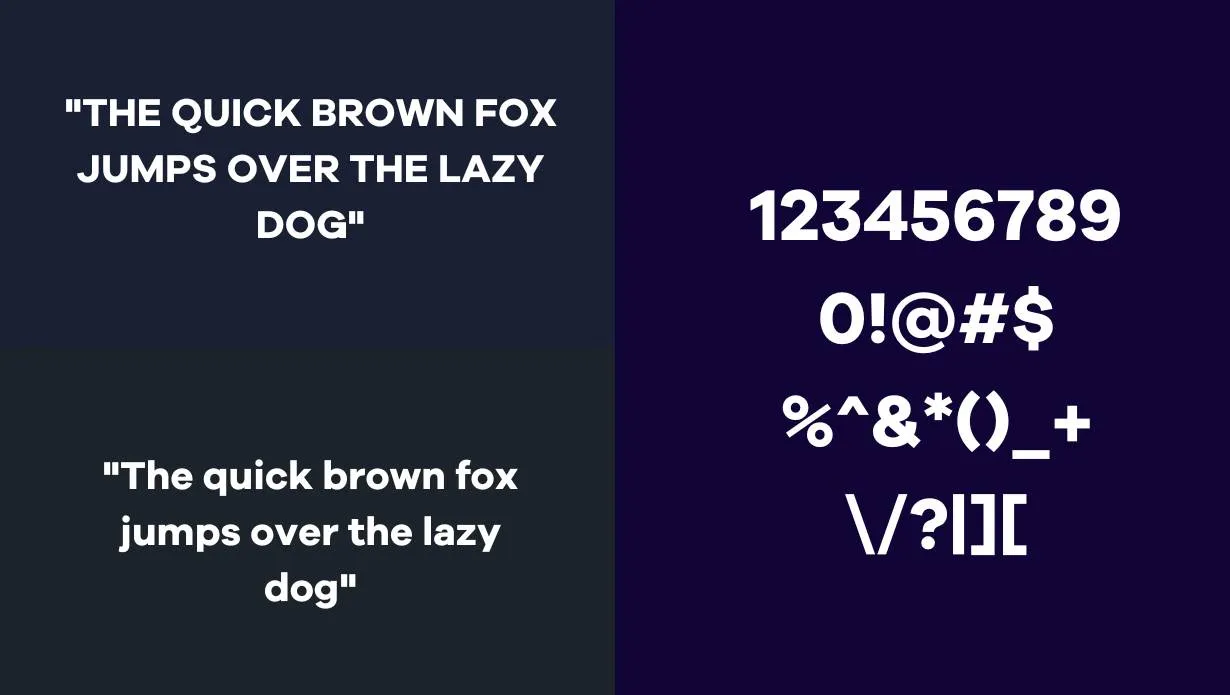
Introducing Galyon Font, a Sans-Serif font style that has pure geometric structure and soft characters, it was created by WOLVE along with 562 characters and 416 glyphs.
It also includes soft and smooth uppercase, lowercase, numbers, accents, alternates, punctuations, and a few special characters.